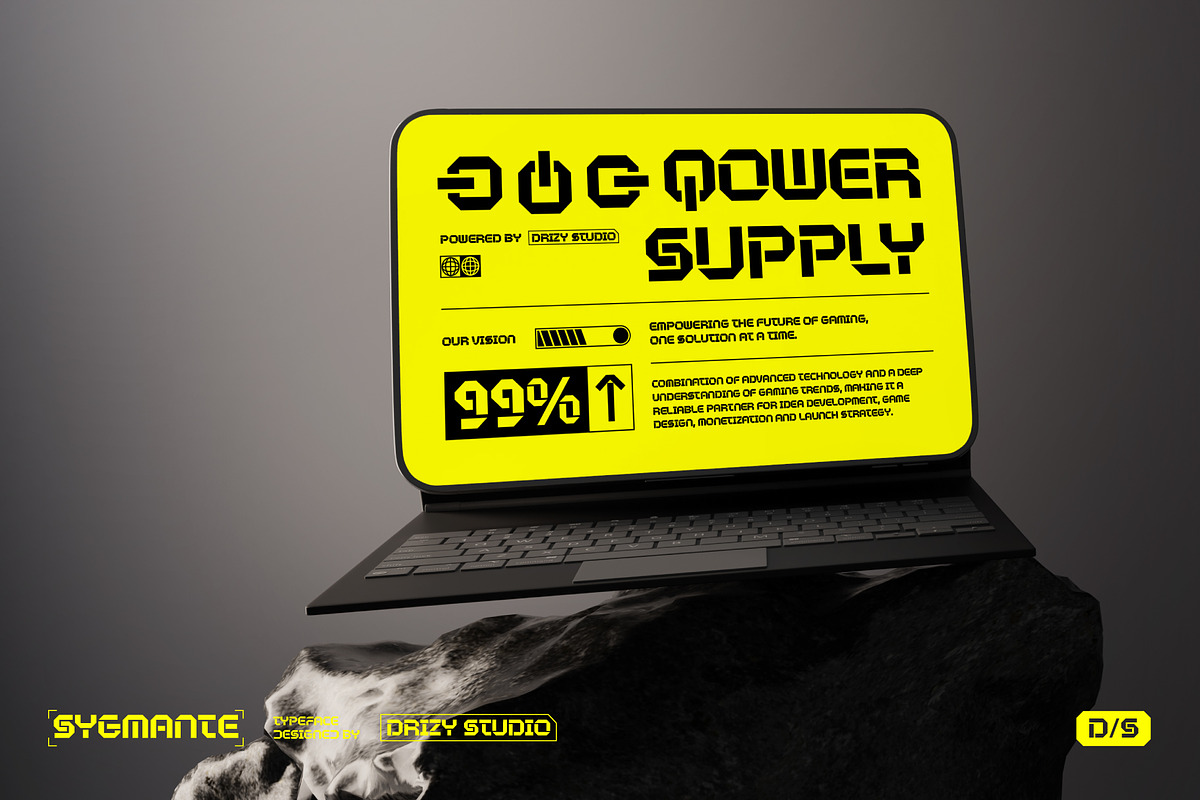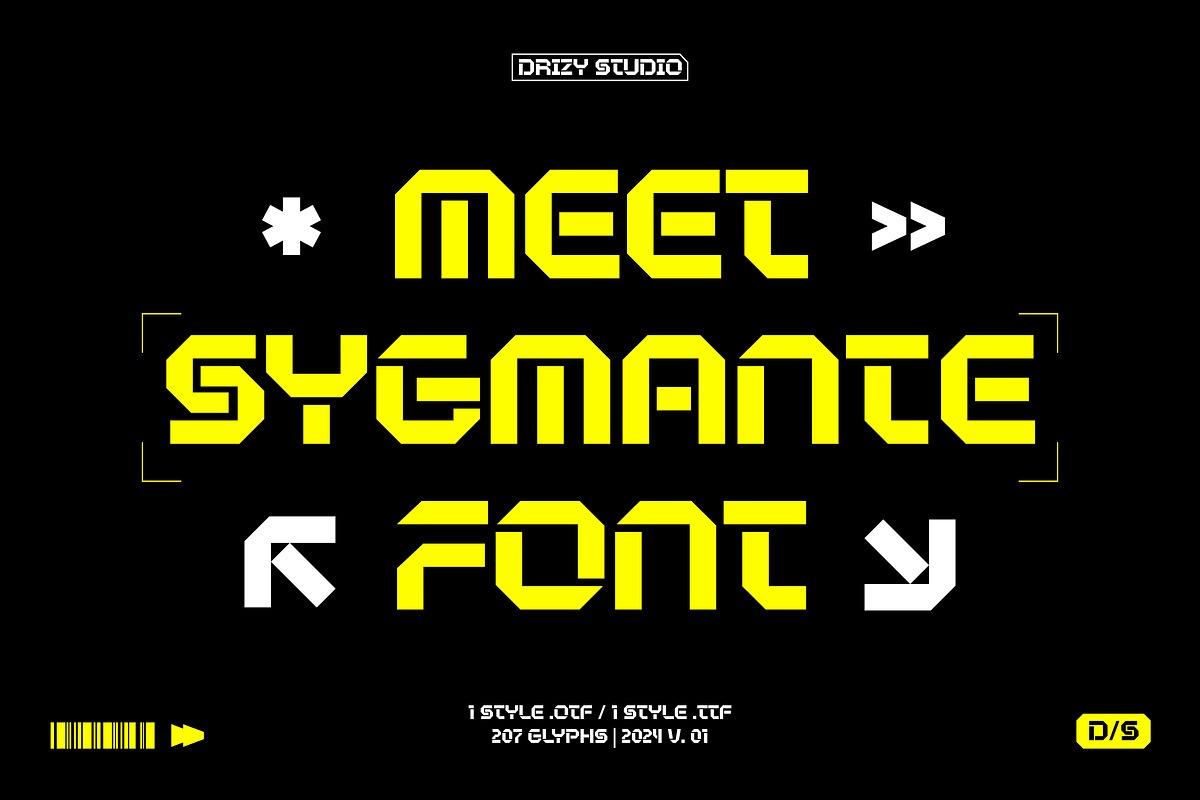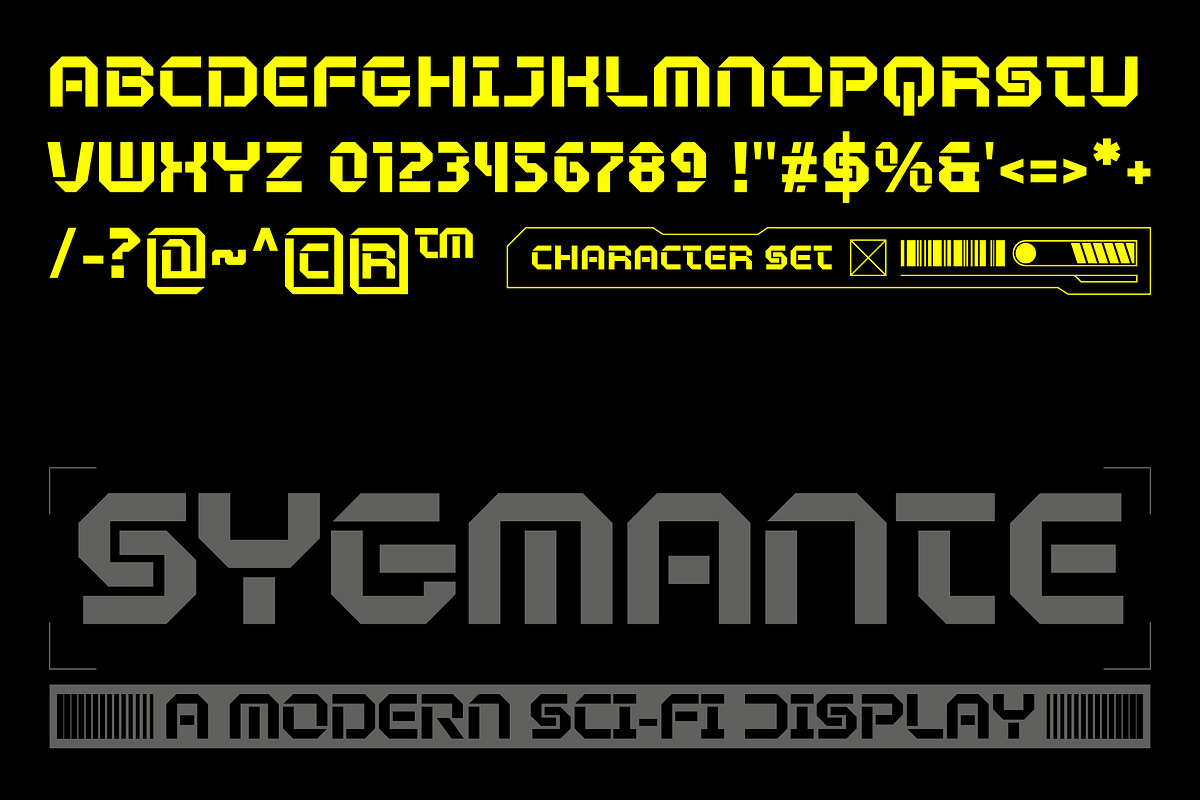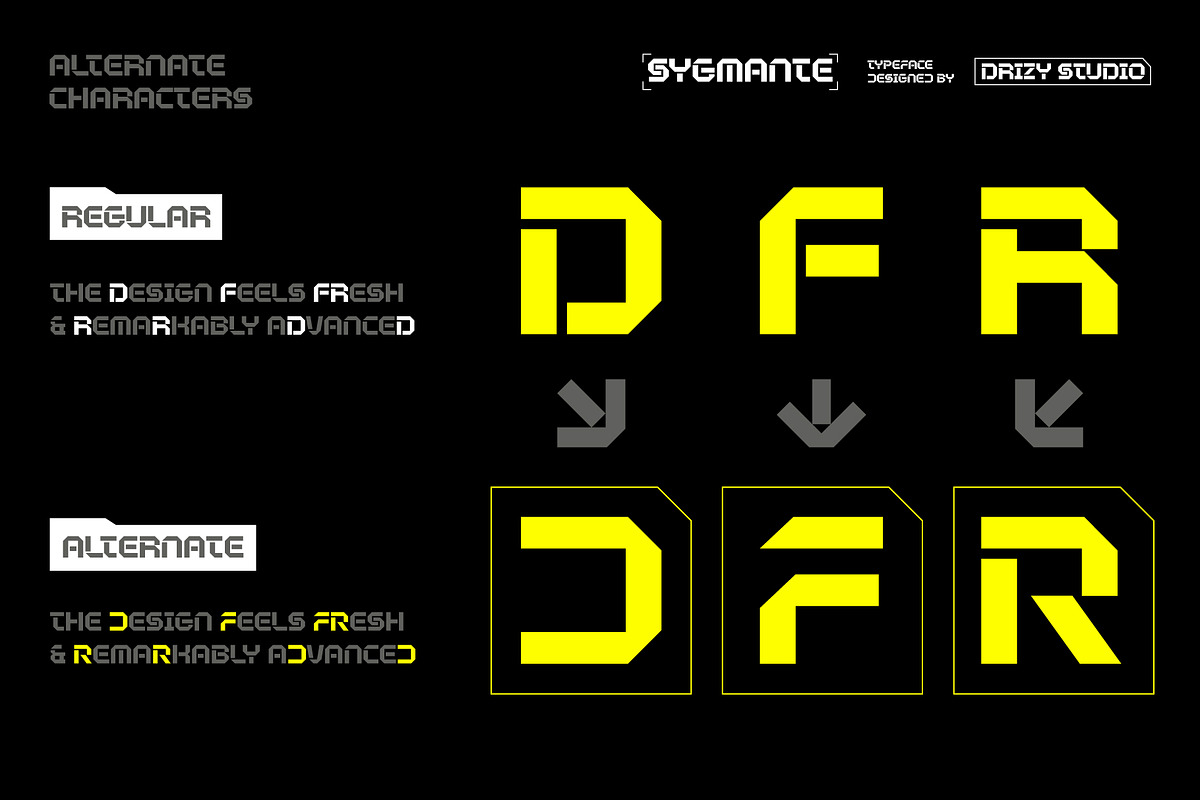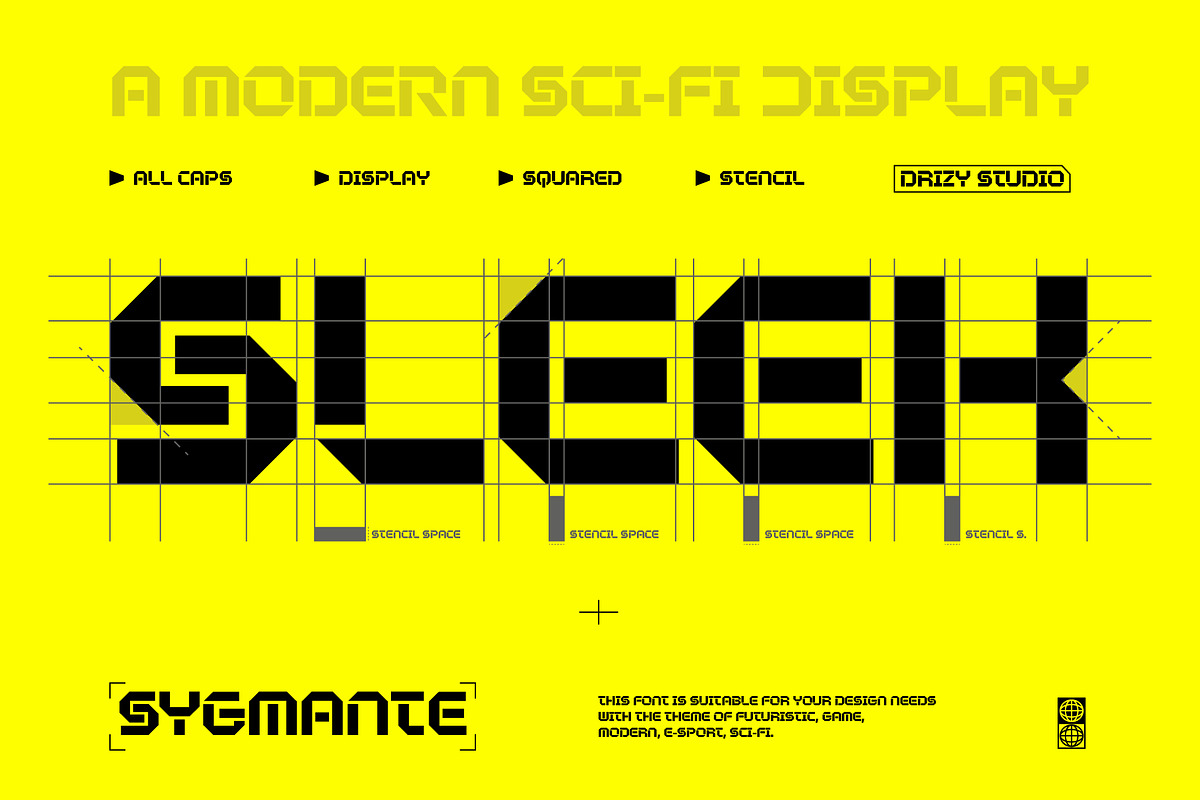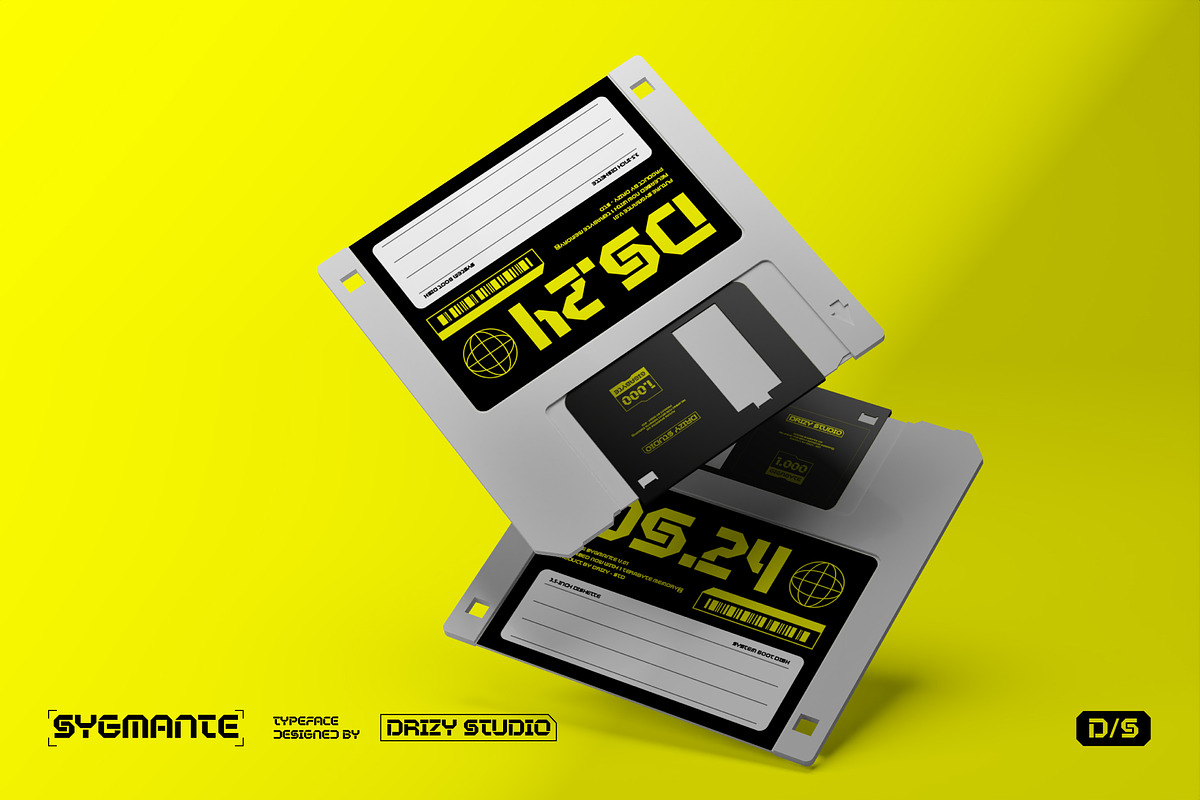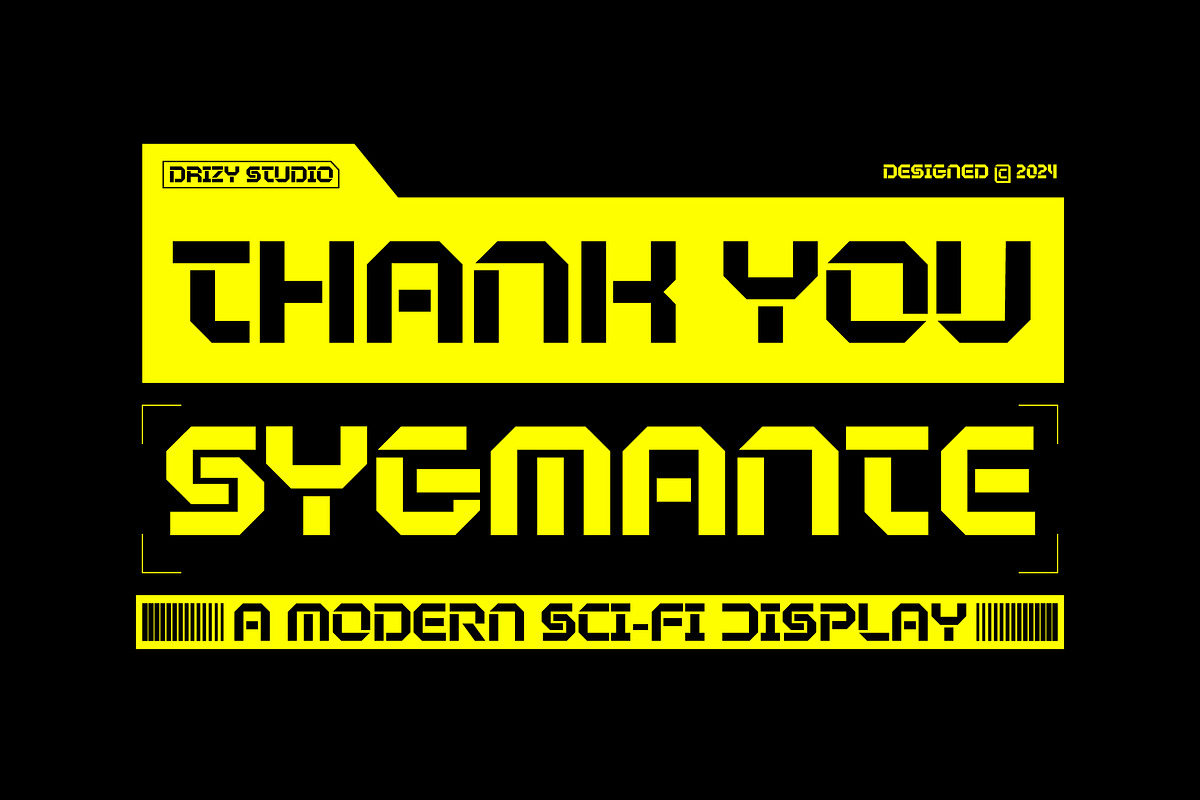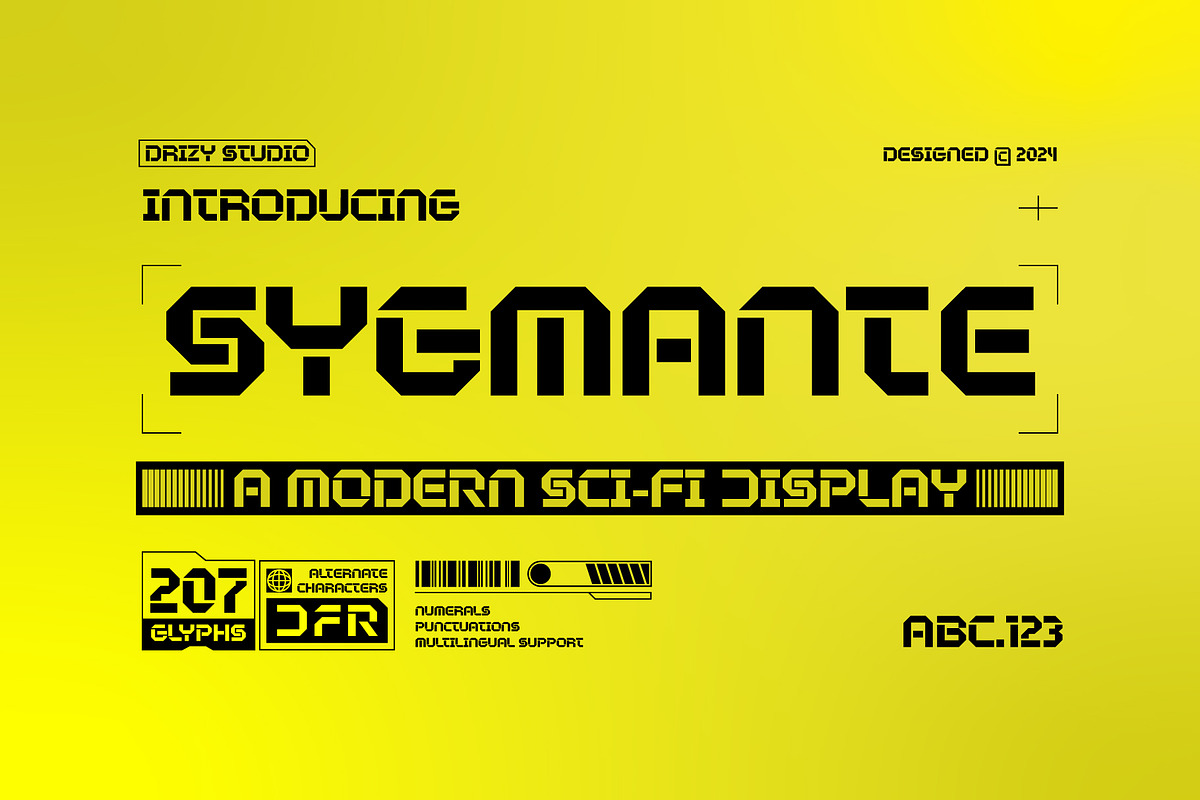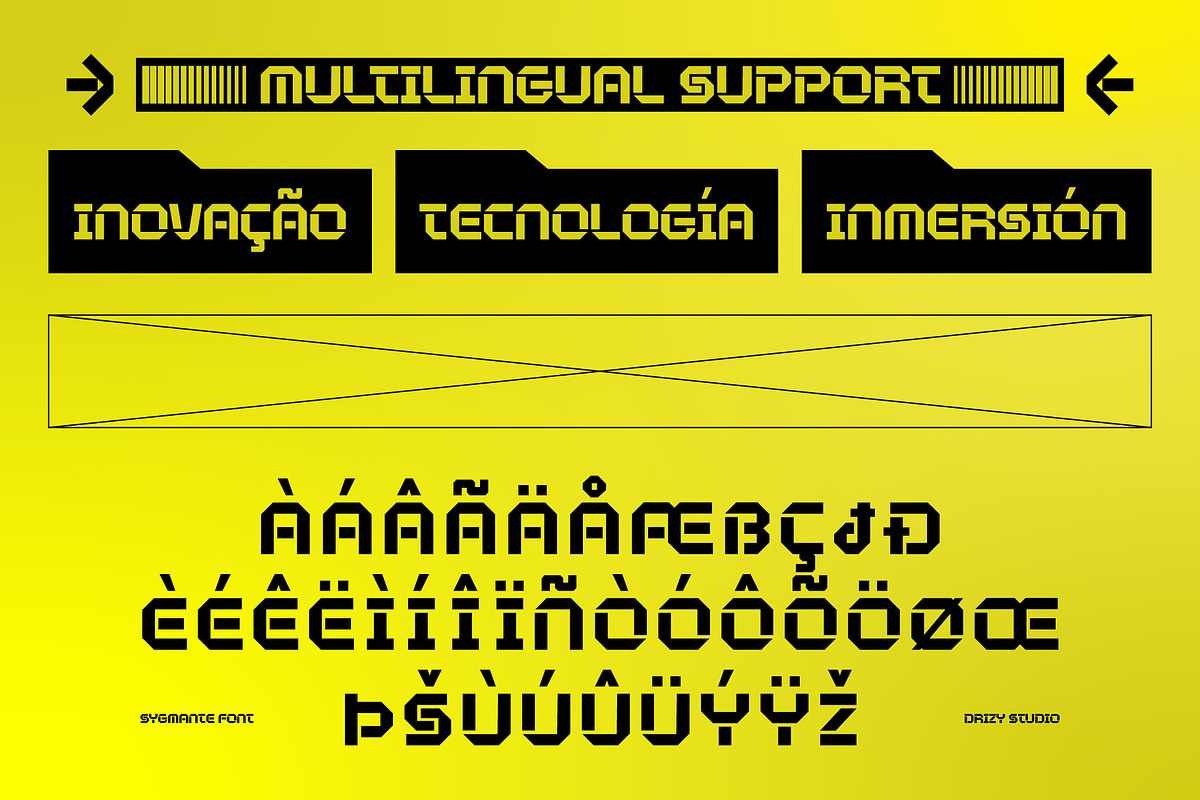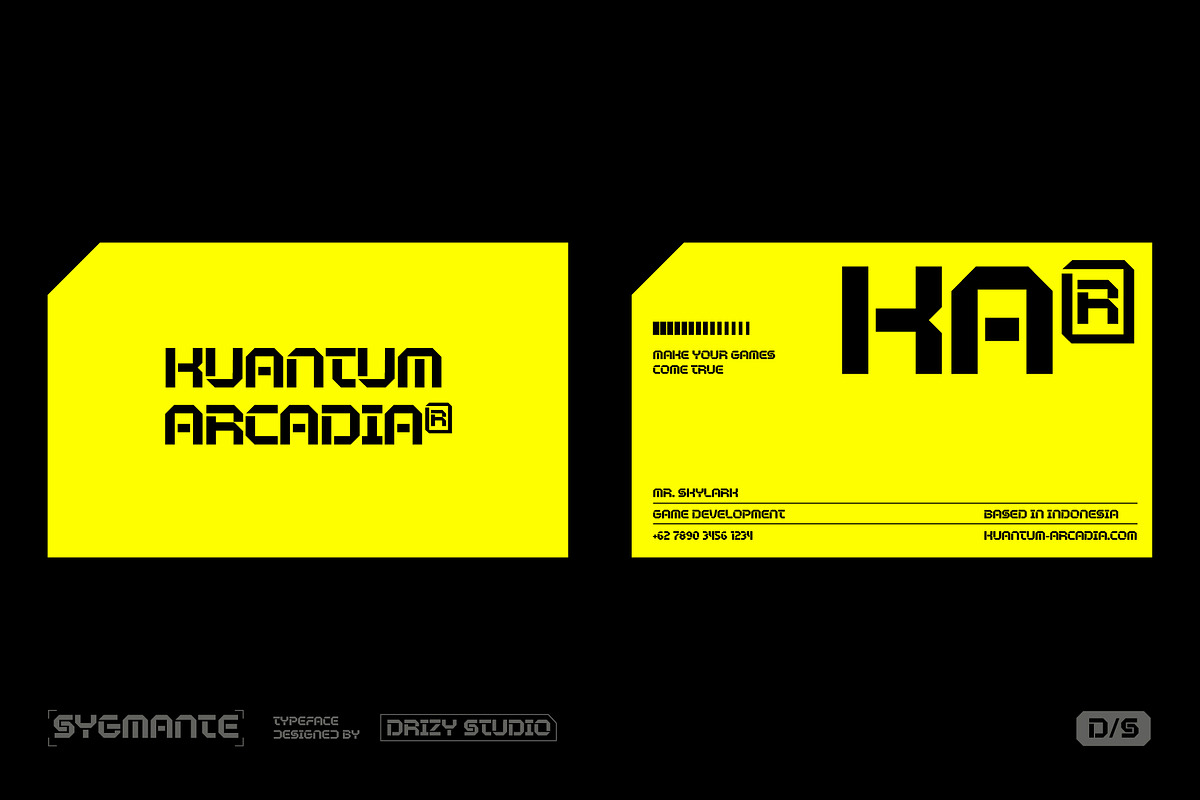
Sygmante – Modern Sci-Fi Display
Sygmante – Modern Sci-Fi Display Font
Sygmante is a cutting-edge typeface that combines futuristic aesthetics with bold, dynamic lines, making it a perfect choice for the Esports Design and gaming world. With it’s sharp angles, geometric precision, and sleek design, Sygmante exudes energy and innovation, ideal for titles, team logos, or promotional materials. This font captures the essence of high-tech environments and competitive adrenaline, bringing a powerful and modern vibe to any project. Whether used for digital banners, game branding, or esports merchandise, Sygmante is the ultimate tool to stand out and make a statement in the world of gaming and sci-fi designs.
Sygmante features:
- Character Set (All Caps)
- Punctuation & Numbers
- Alternates “D, R, F”